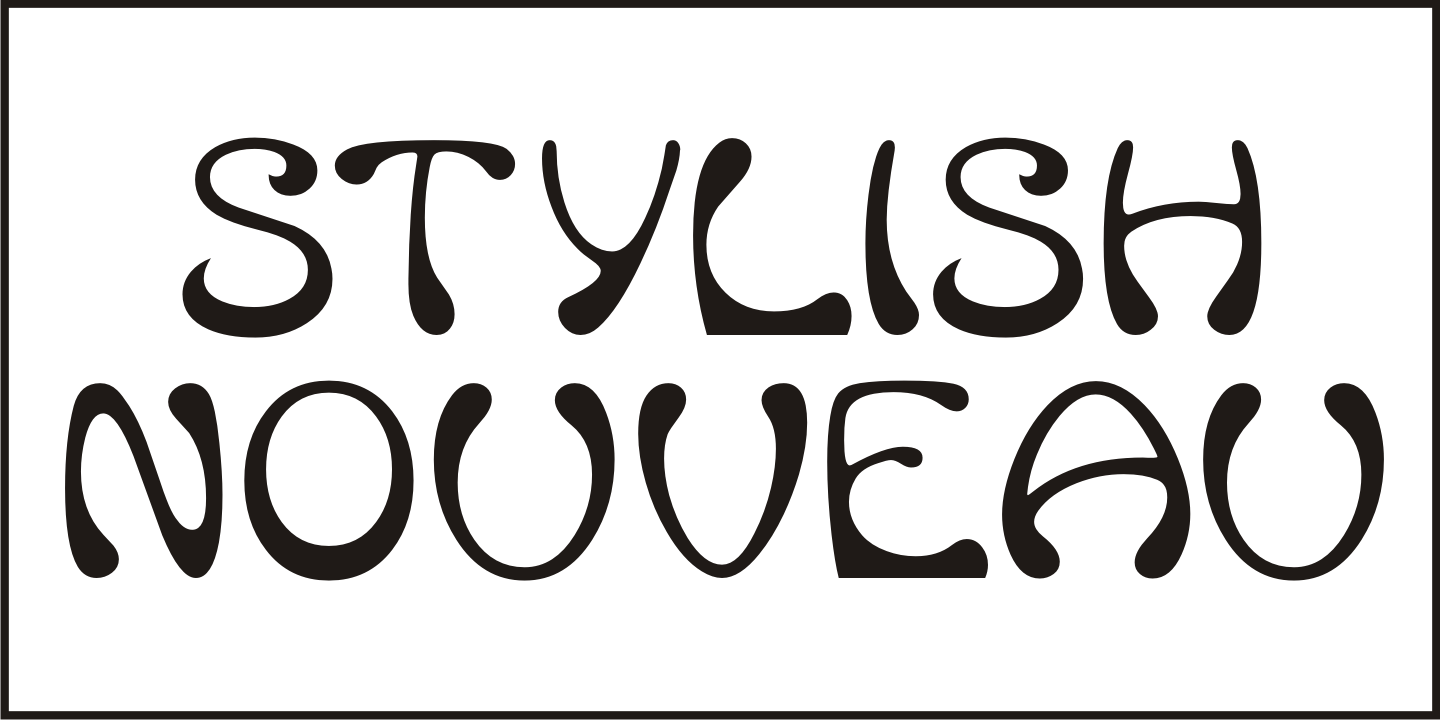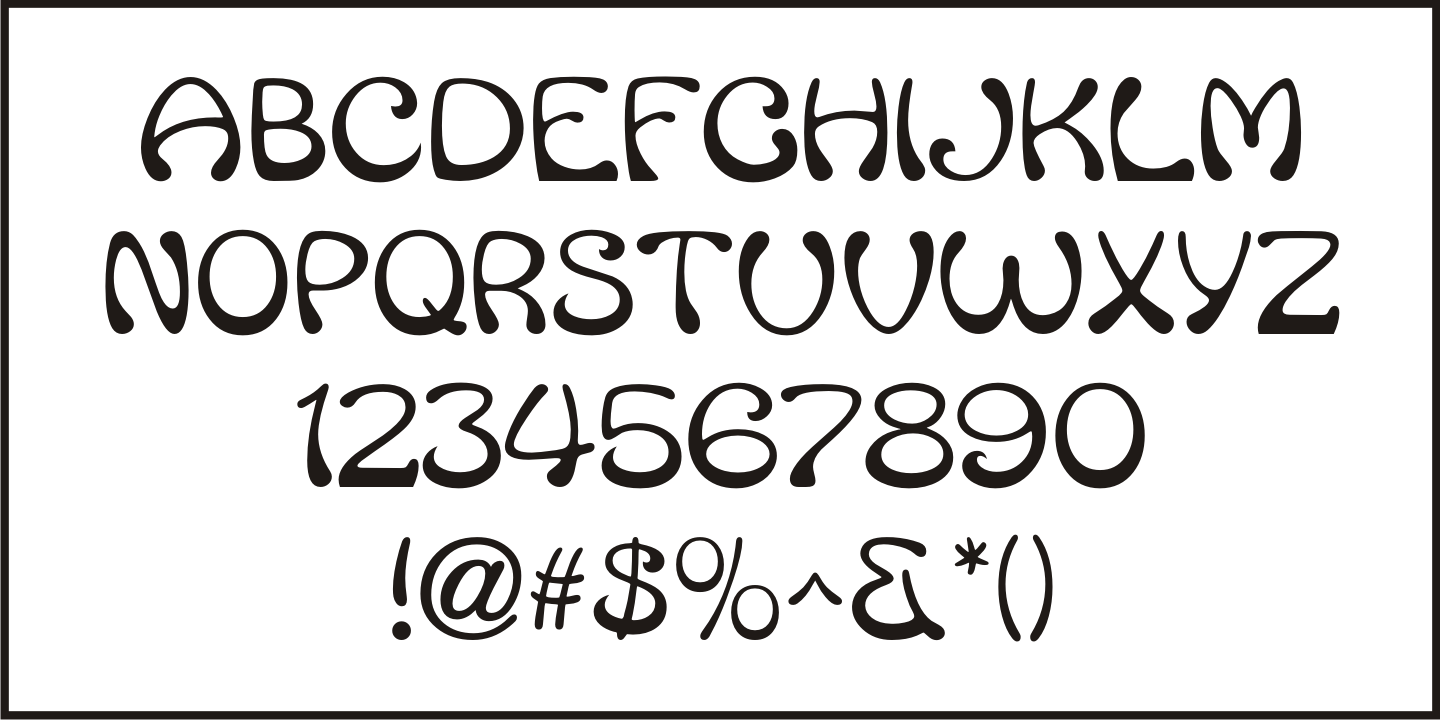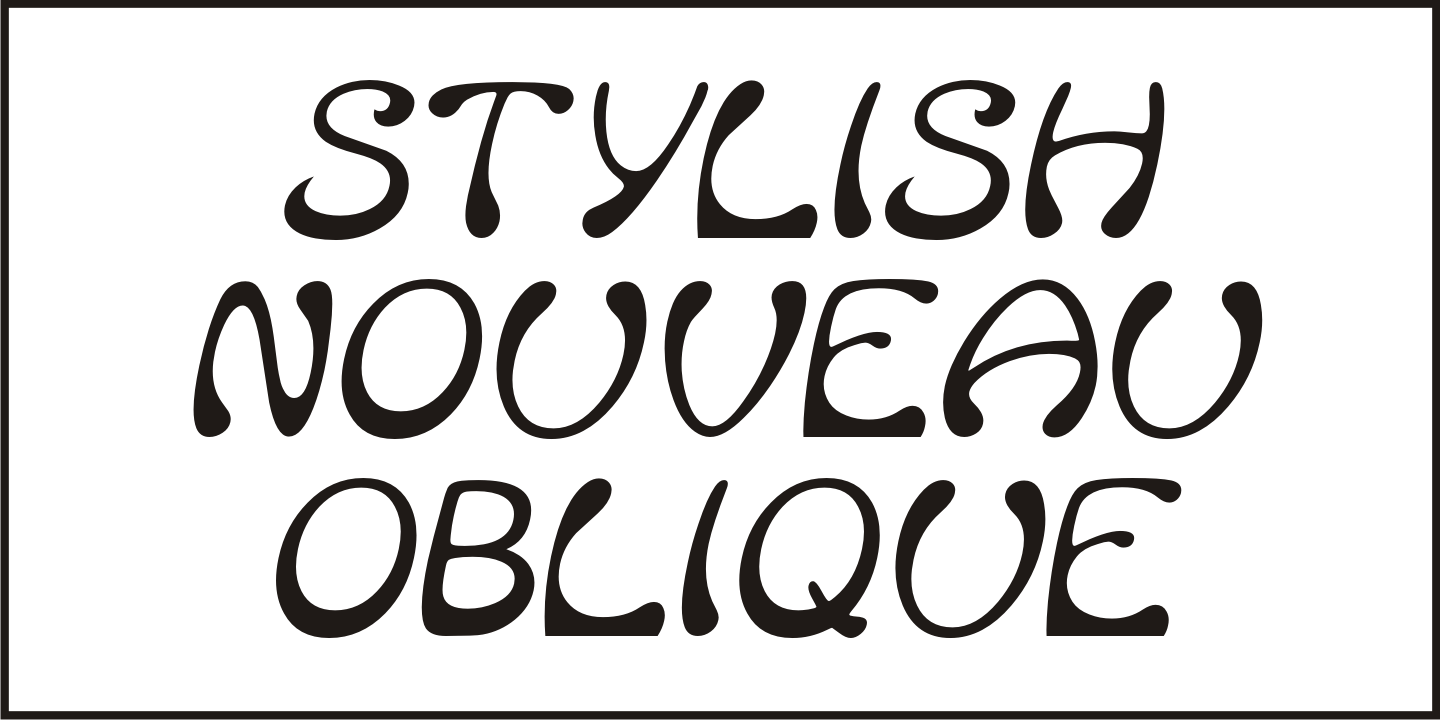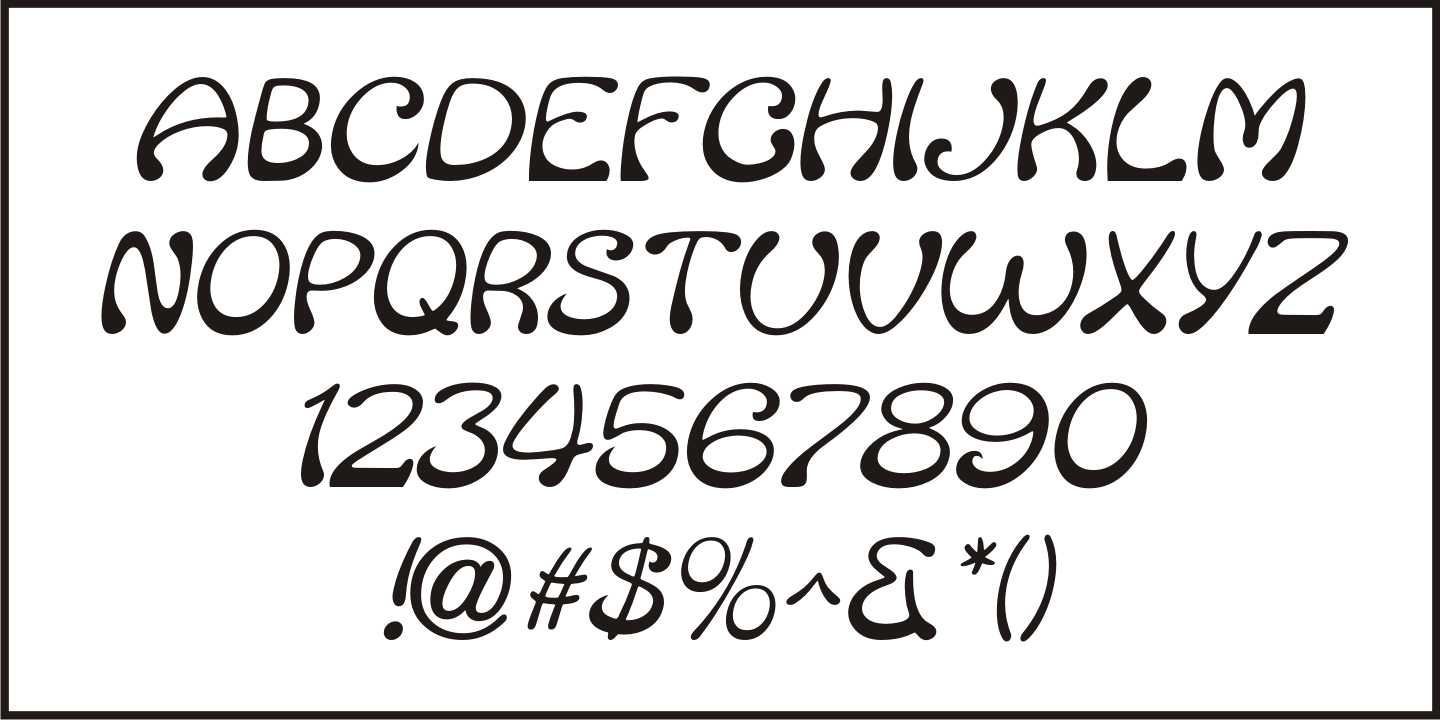
Stylish Nouveau
Free form Art Nouveau hand lettering found on many early-1900s ads for various personal care items manufactured by the Colgate Company were the design inspiration for Stylish Nouveau JNL, which is available in both regular and oblique versions.
Stylish Nouveau JNL Regular by Jeff Levine Fonts